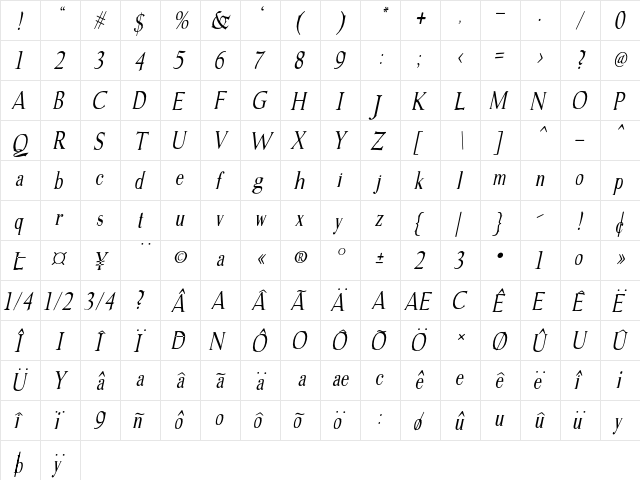
Gudvayne Regular
| Foundry | Degi Kurniawan |
| Designer | Degi Kurniawan |
Design Context for Gudvayne Typeface
Gudvayne is a composed and adaptable typeface that performs quietly and consistently across a wide range of design contexts.